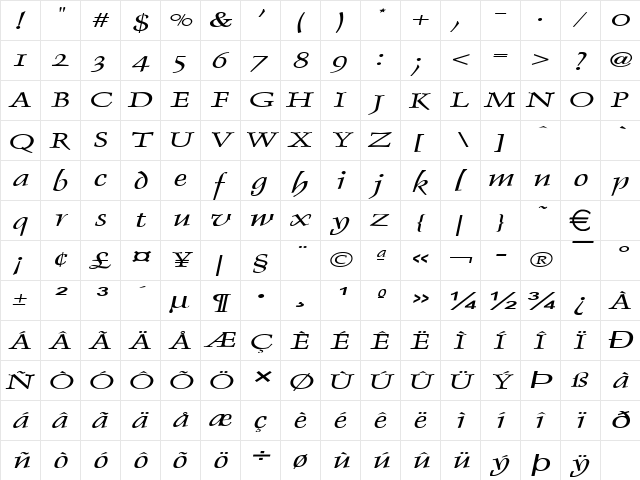
DolphinExtended Italic
Design Context for DolphinExtended Typeface
DolphinExtended offers clean, dependable letterforms without strong stylistic allegiance, making it a practical choice for designers who need flexibility. The slanted form adds forward momentum and visual energy.
Pro Tip: Use DolphinExtended for emphasis, pull quotes, and subheadings where its slanted energy can add rhythm to the layout.